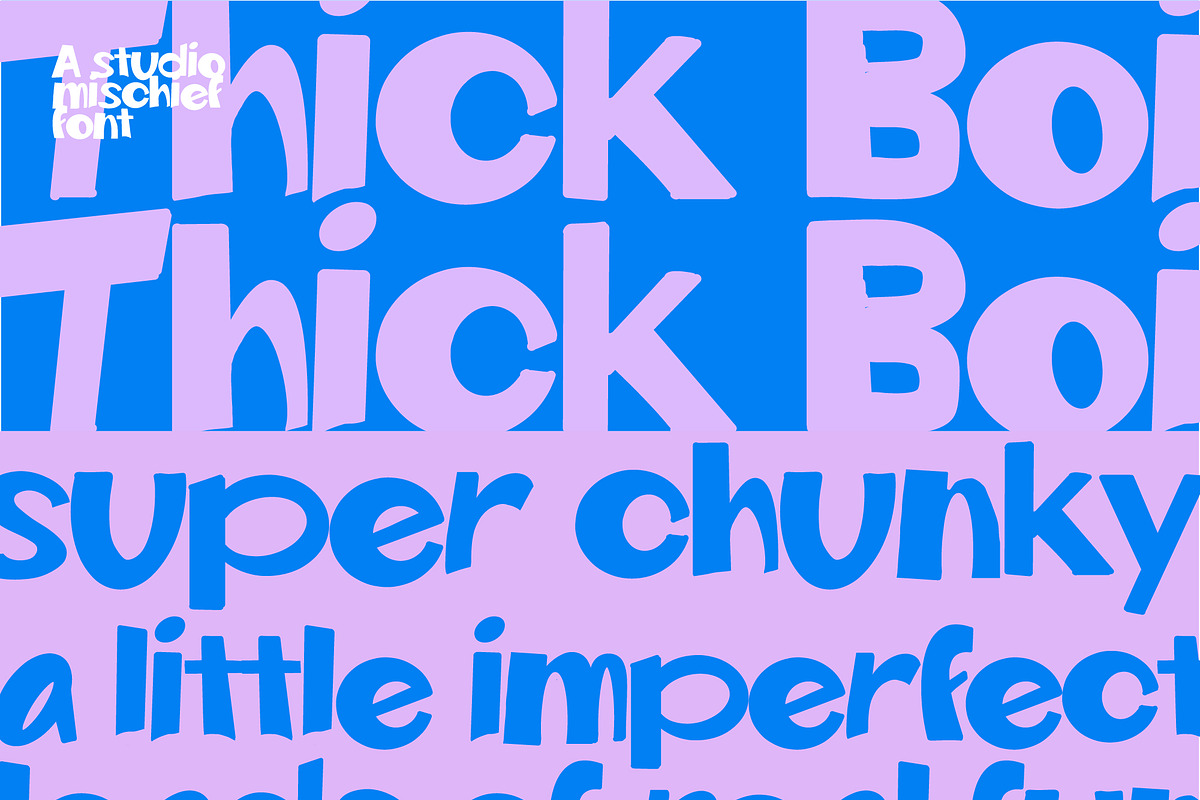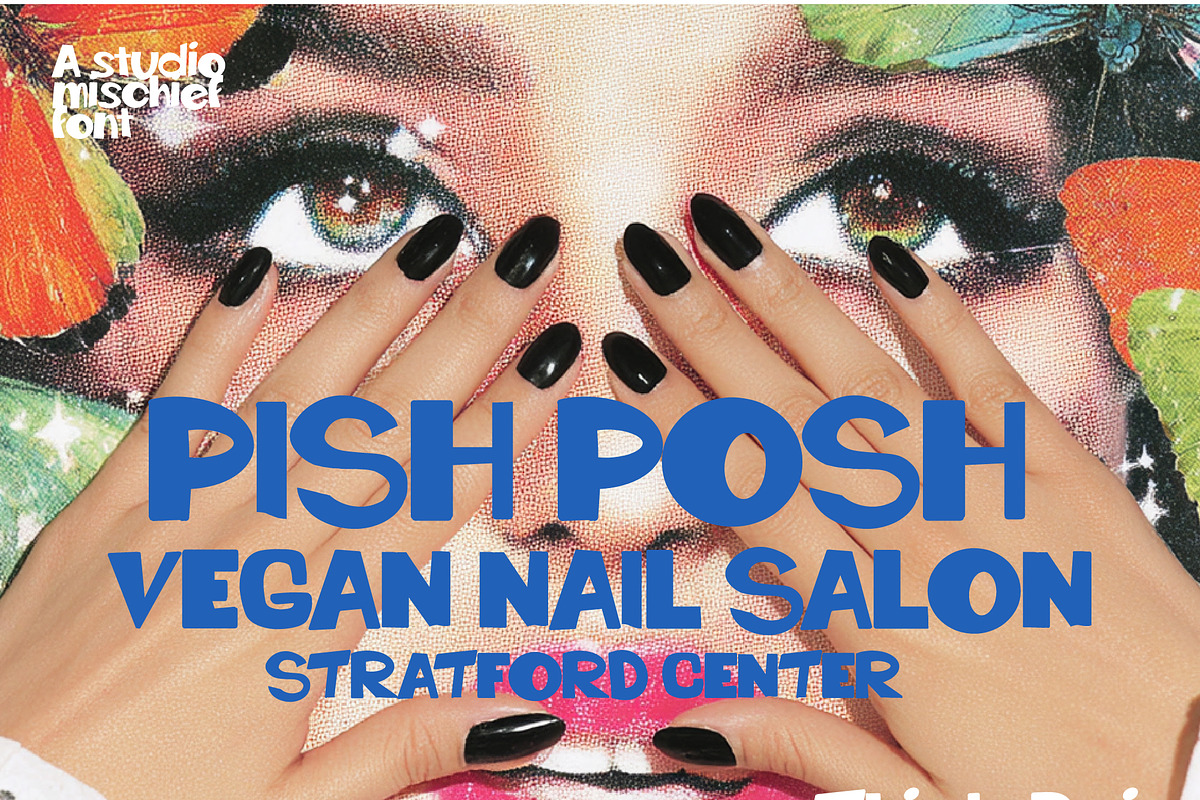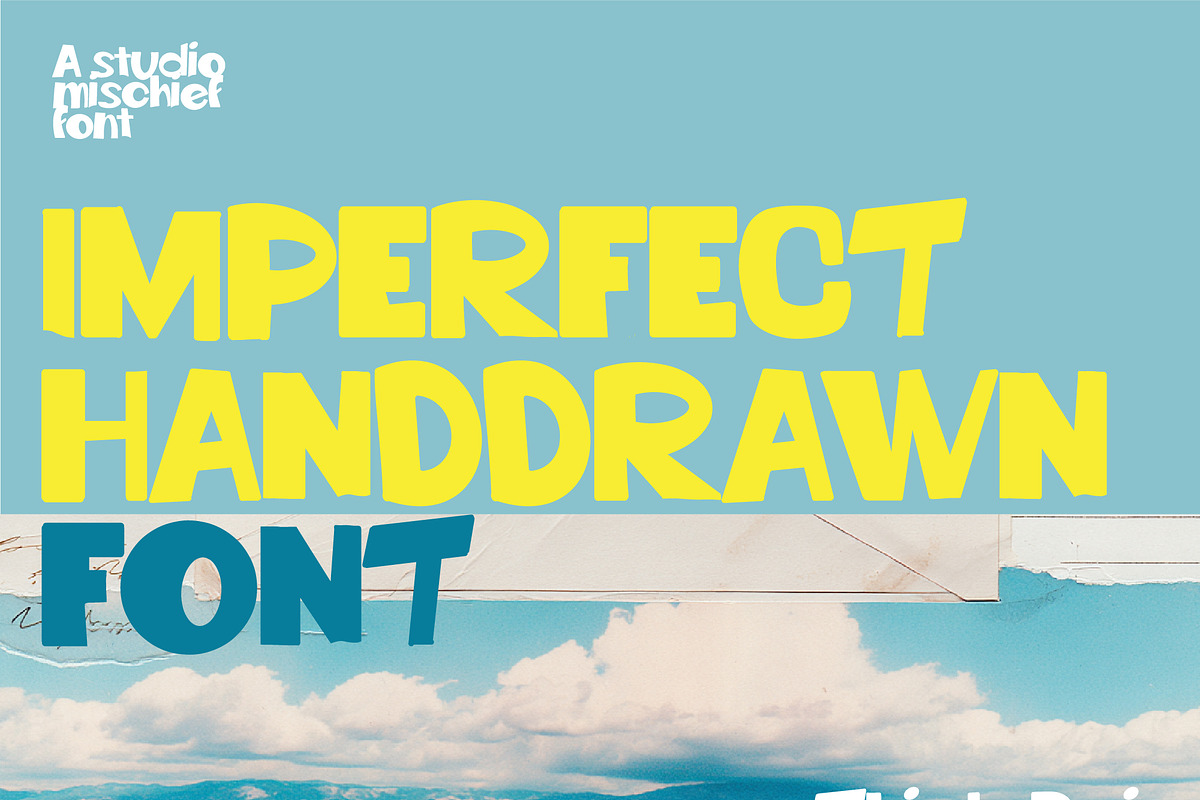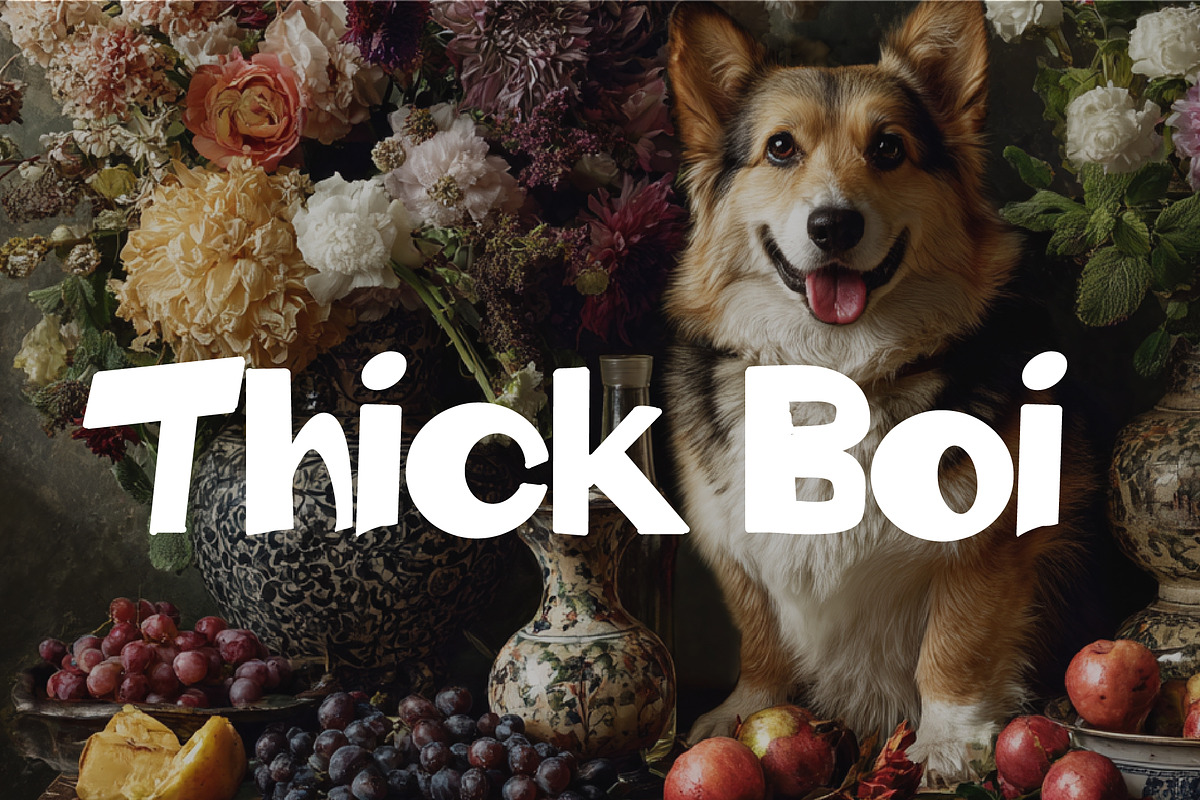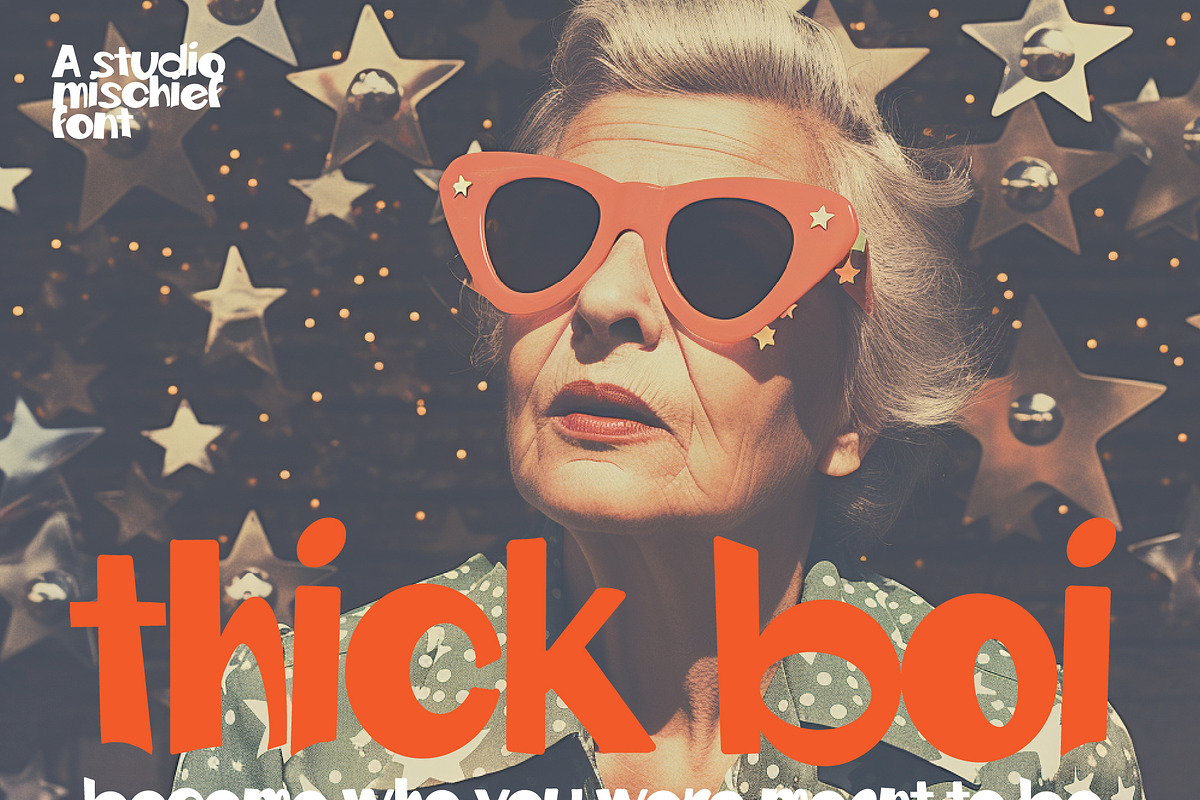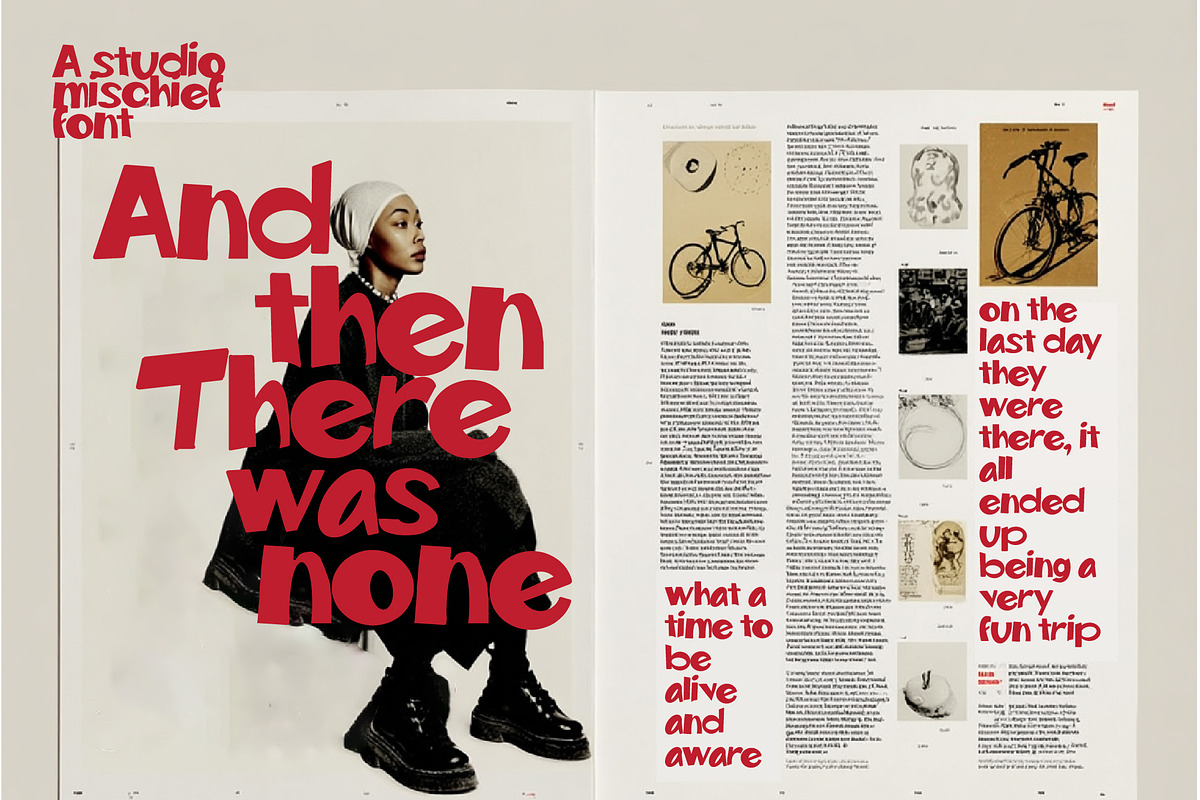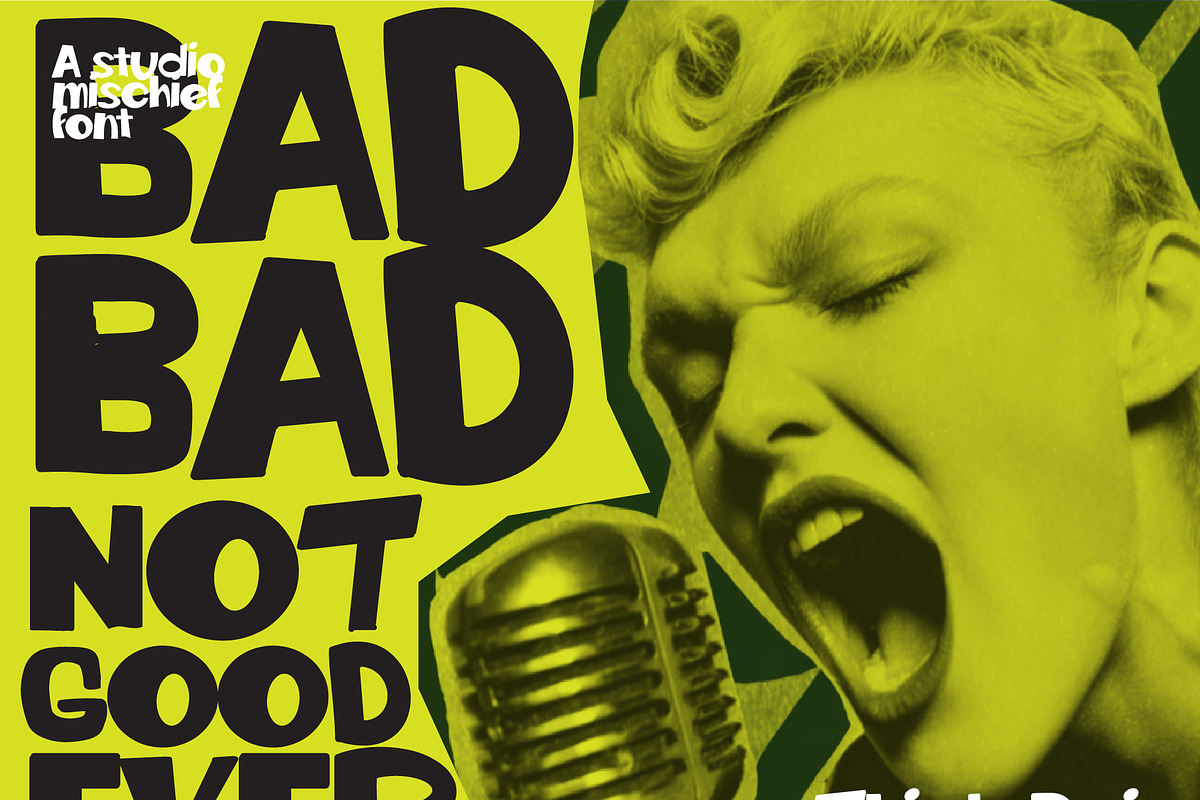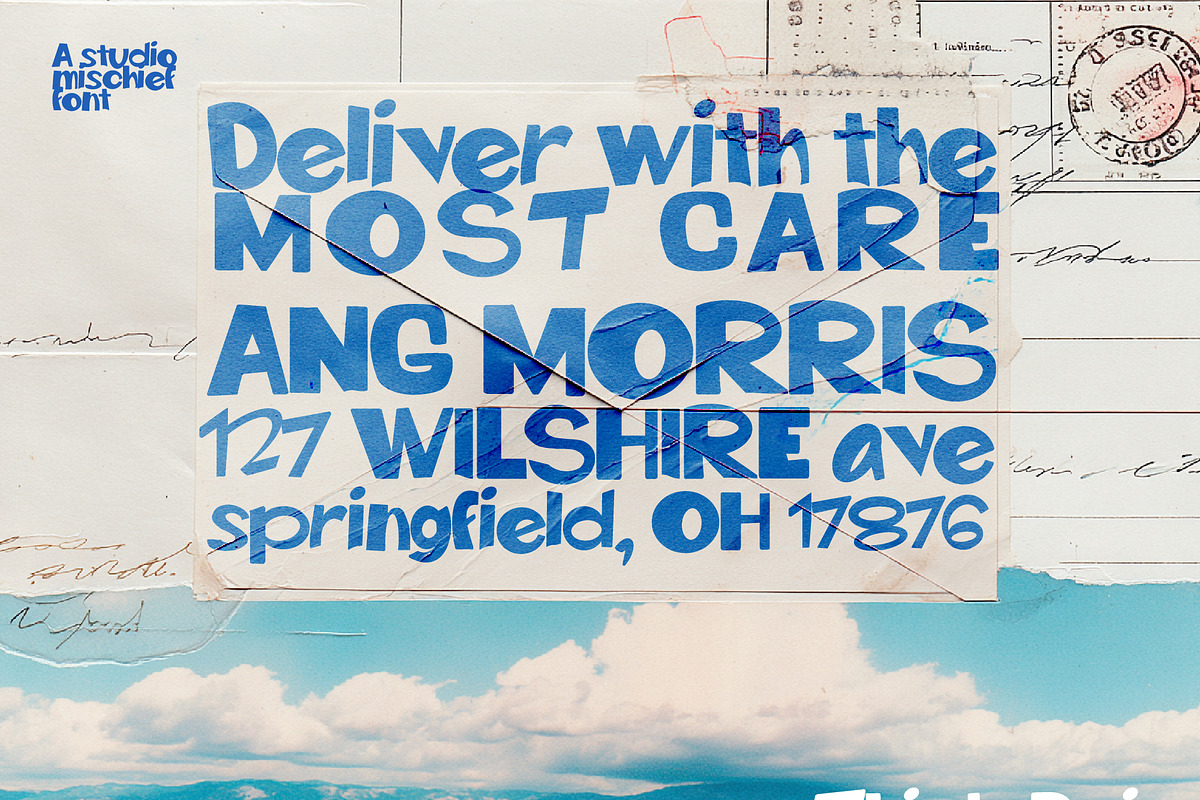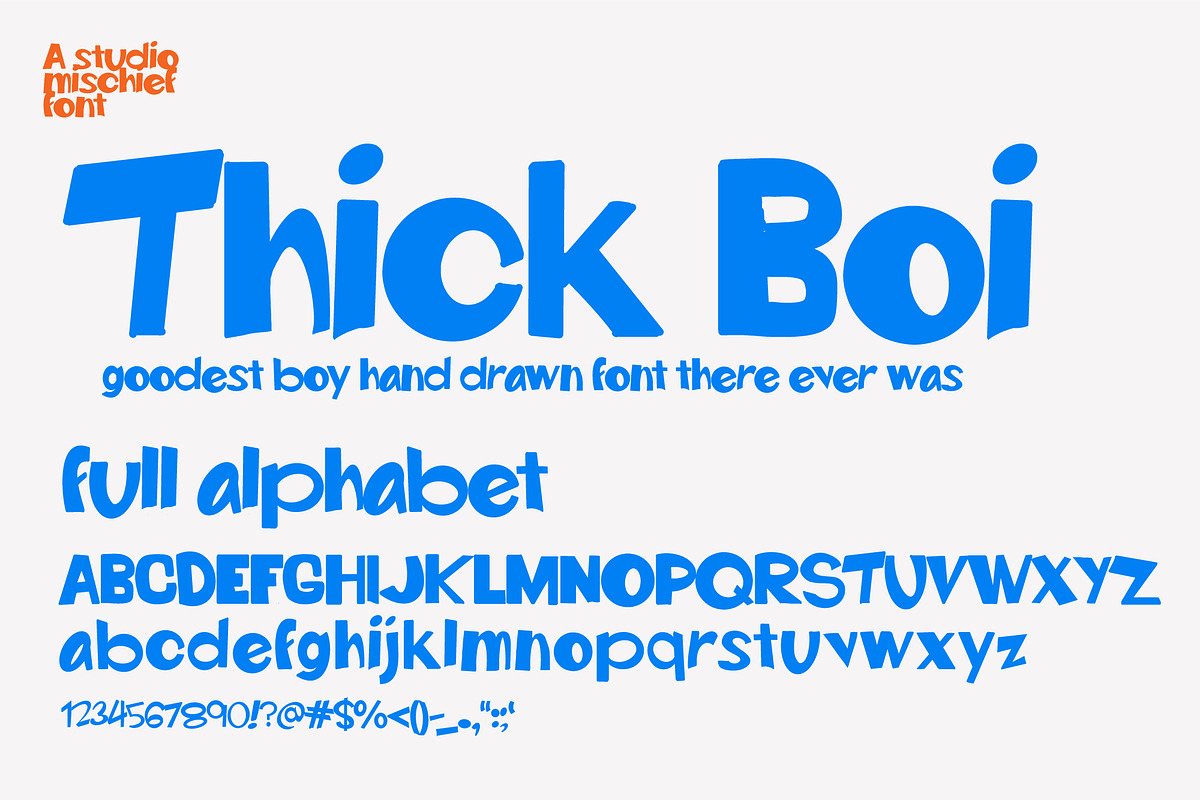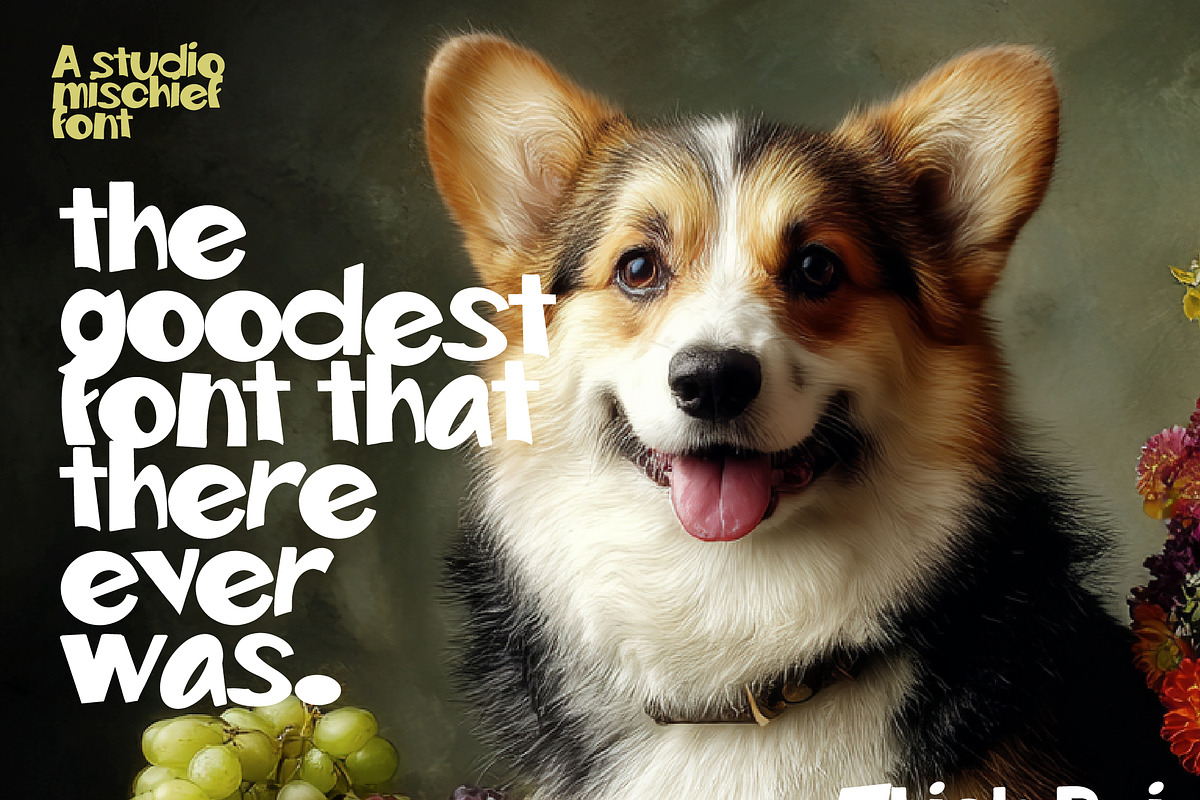
Thick Boi Handwritten Display
Meet Thick Boi, the bestest bi font there ever was. A bold, hand-drawn sans serif with a little swagger. Thick strokes, soft edges, and just enough wobble give this font a playful, human feel that doesn’t try too hard. It’s weird but usable, loud but friendly, and perfect for branding, posters, merch, packaging, and anything that needs instant personality. Thick Boi is always there for you.hand drawn font Full uppercase & lowercase alphabet + Punctuation, numbers & symbols